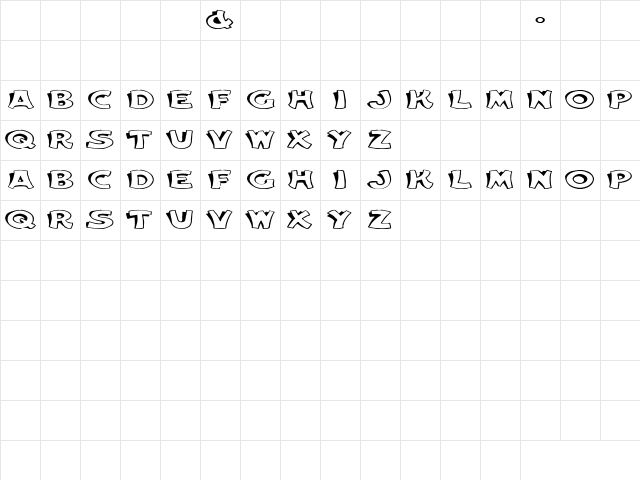
Cartoon Slant 3 Regular Free Font
Cartoon Slant 3 Regular
Design Context for Cartoon Slant 3
Cartoon Slant 3 has an approachable, lighthearted character - its loose, expressive forms are well-suited to children's content, casual branding, and fun-first design.
Font Pairing: Pairs well with a rounded or humanist sans for body copy, maintaining the friendly tone without relying on Cartoon Slant 3 to carry extended reading.
Pro Tip: Use Cartoon Slant 3 at larger display sizes where its expressive character can land. Pair with a clean, simple sans for body copy to maintain readability.